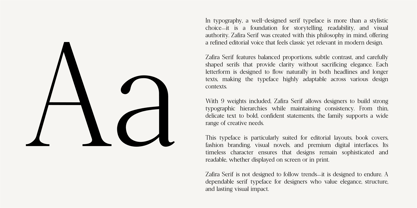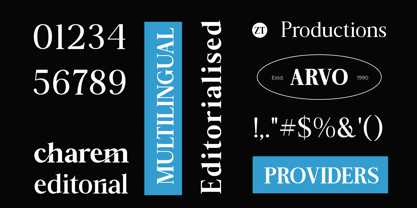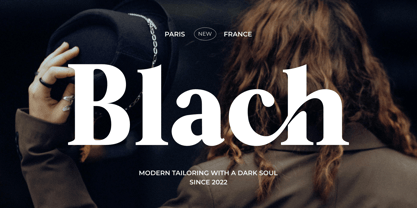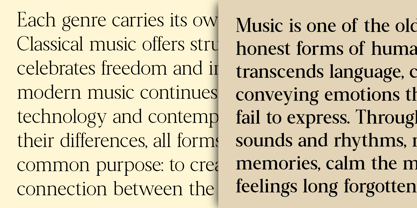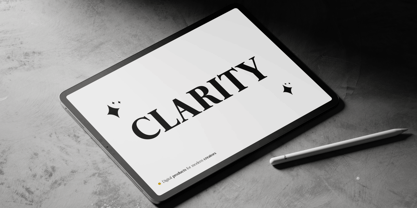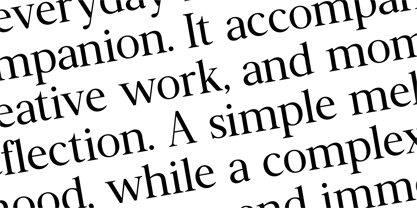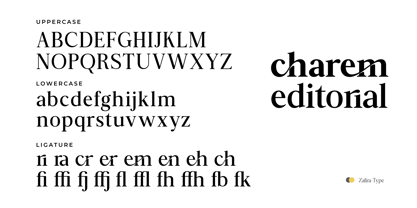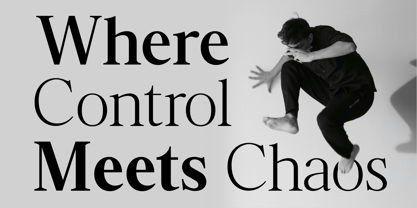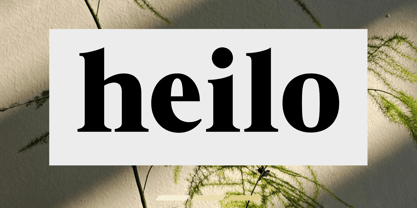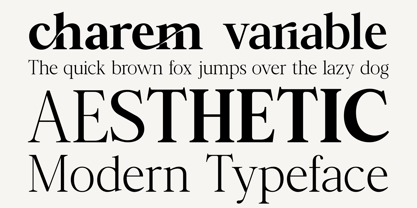
Charem Variable
by Zafira Type
Charem Variable is a high-contrast serif typeface designed to deliver striking elegance and refined authority. Built with nine meticulously crafted weights and full variable flexibility, it offers seamless transitions from delicate, razor-thin strokes to bold, commanding forms. Its sharp contrast and sculpted serifs create a dramatic yet controlled rhythm, giving every word a sophisticated presence. Rooted in classical foundations but elevated through a contemporary lens, Charem balances timeless structure with modern precision. Ideal for luxury branding, fashion editorials, statement headlines, logos, and premium packaging, Charem Variable brings confidence and distinction to both print and digital environments.
Charem Variable